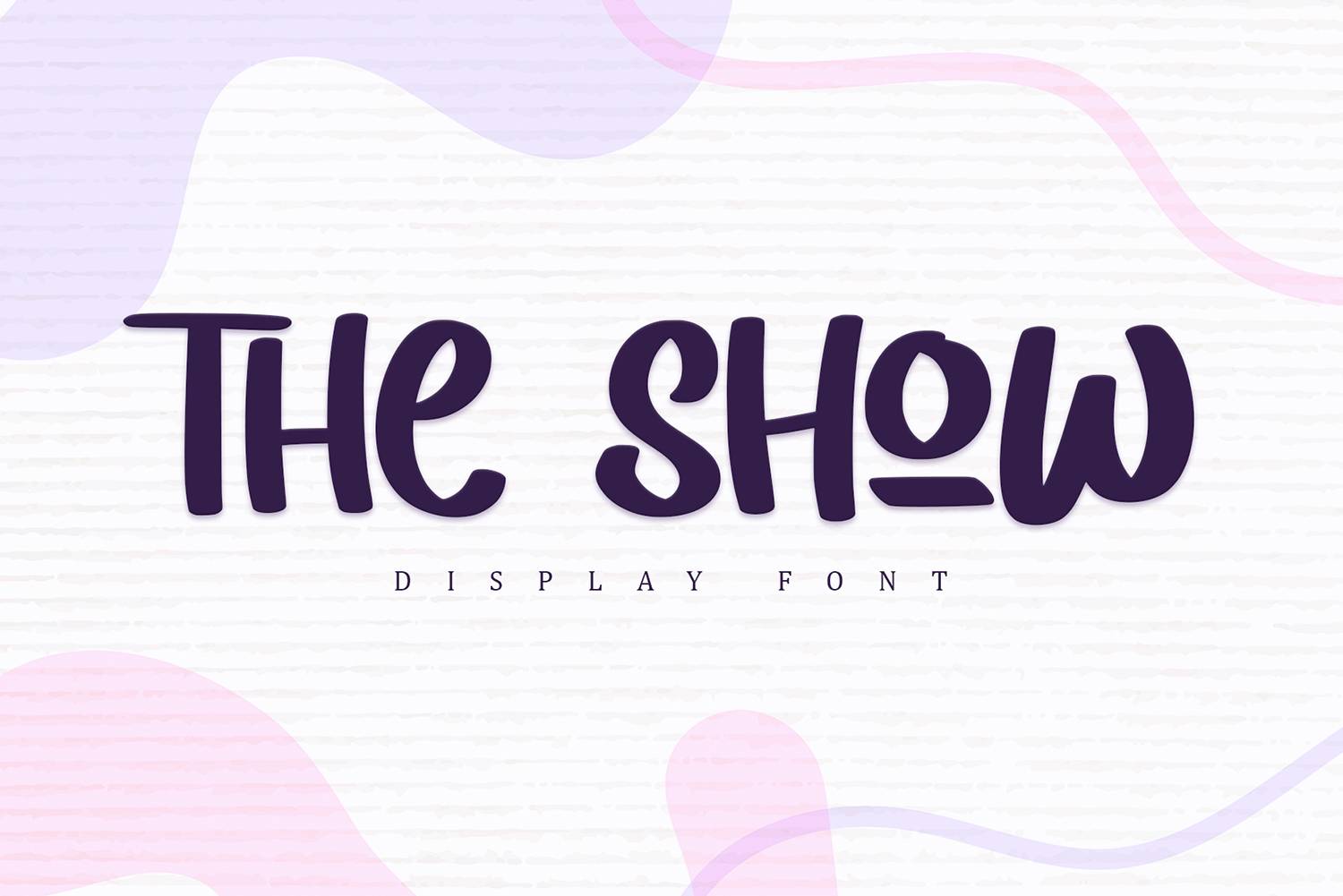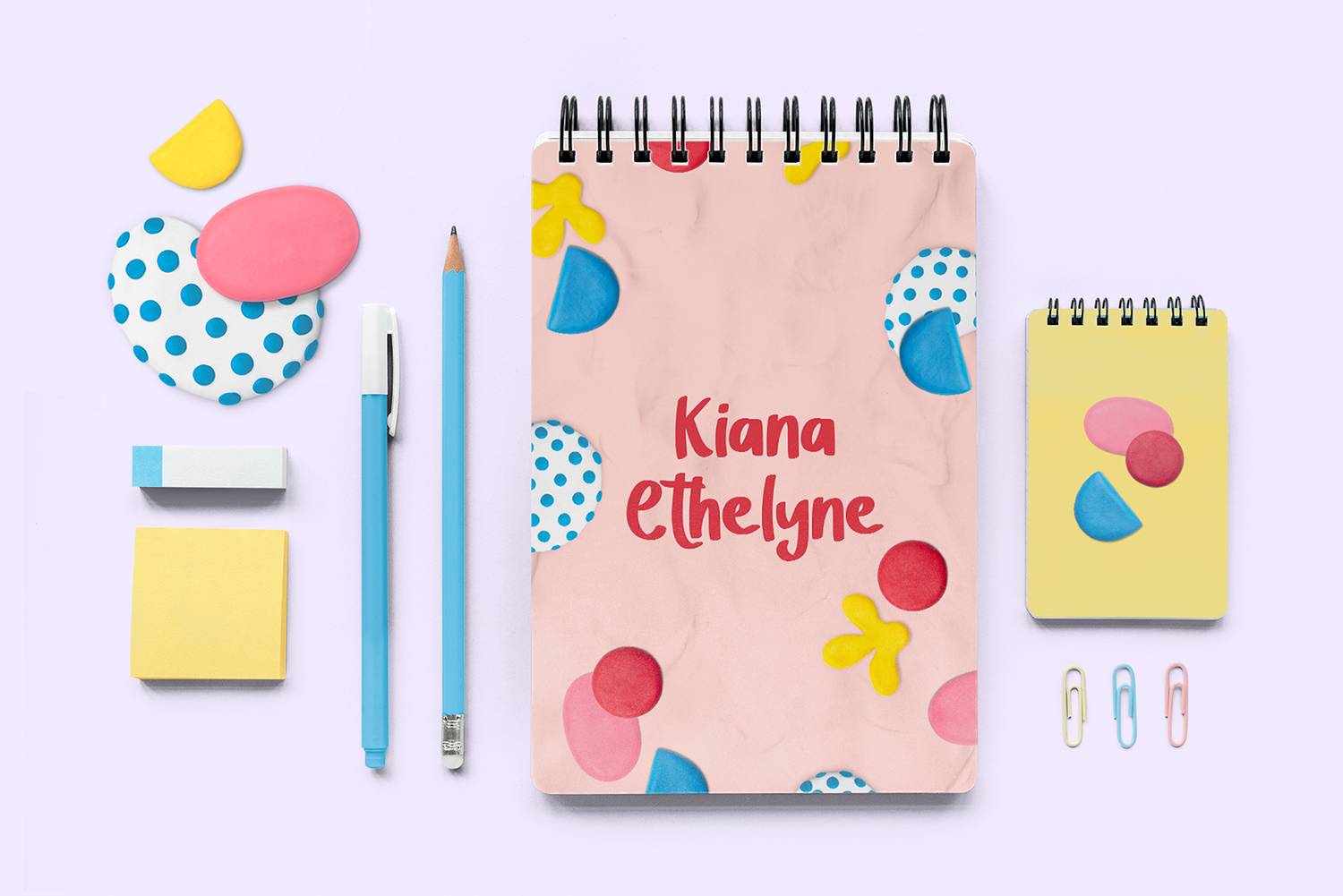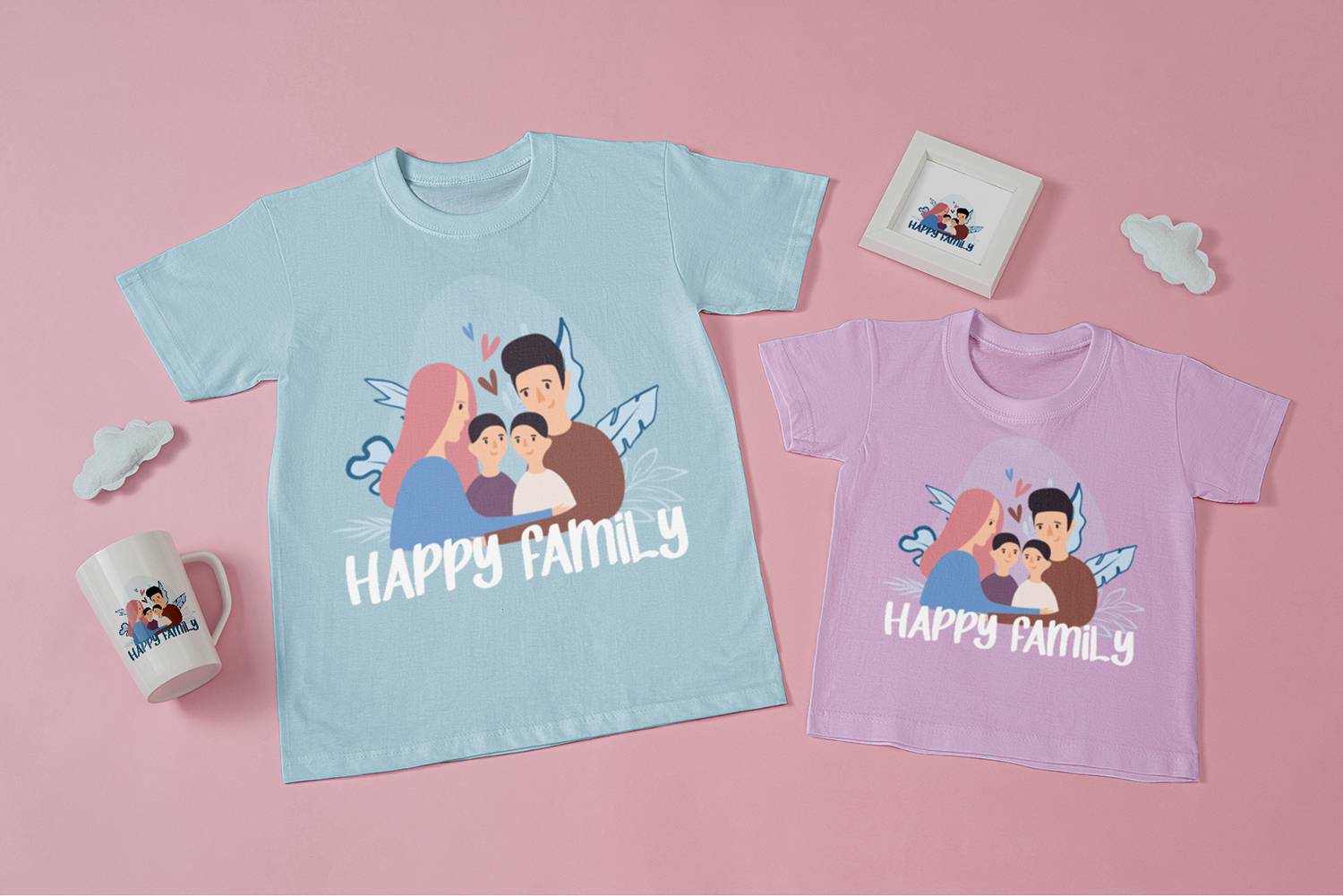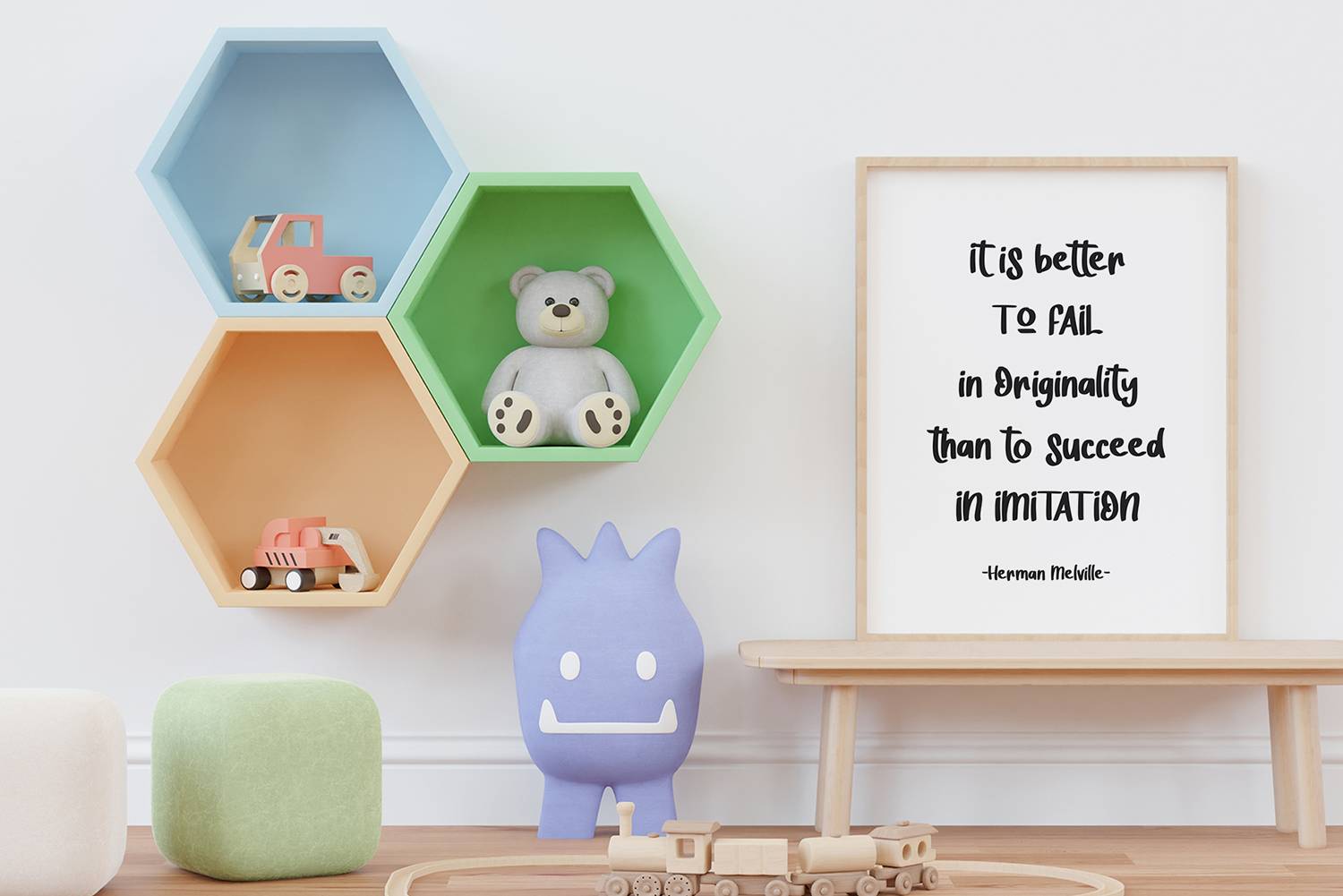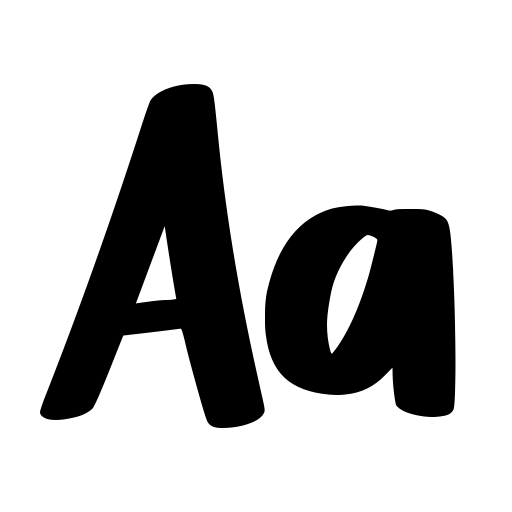
The Show Font is a bold, playful handwritten sans serif with a friendly and informal style. Its rounded, slightly irregular shapes give it a casual, approachable feel, making it great for creative projects, social media graphics, and kids’ materials. This font works well for headlines and logos where a fun, personal touch is desired.
The Show Font